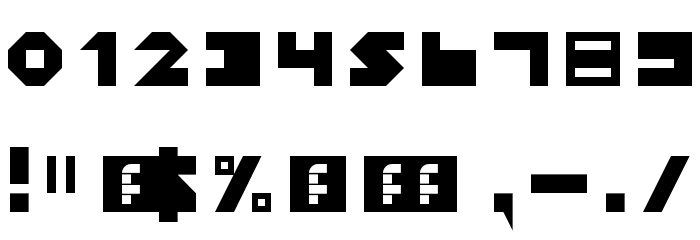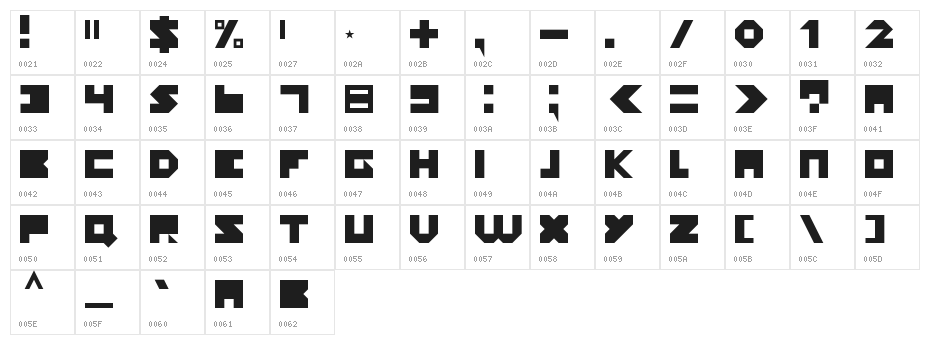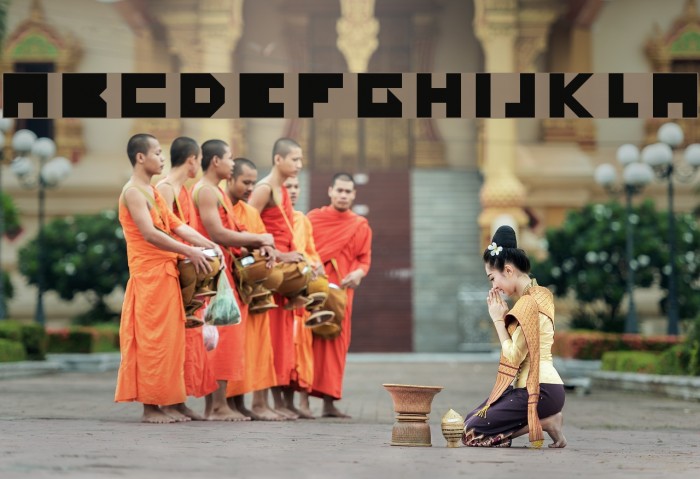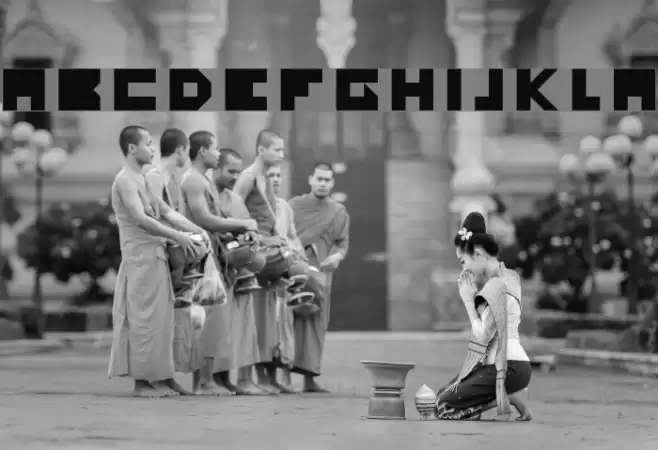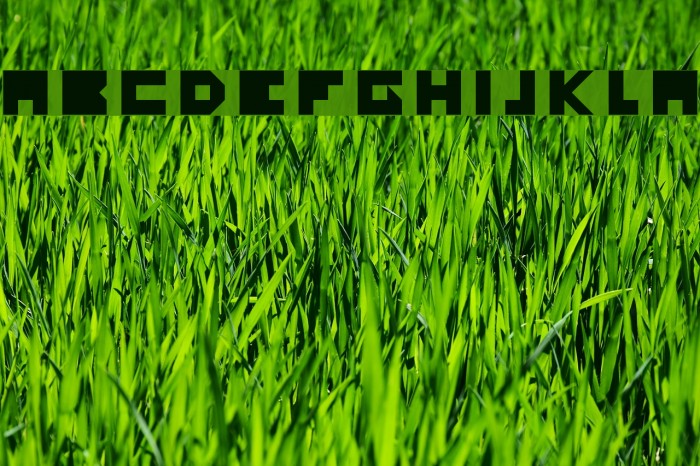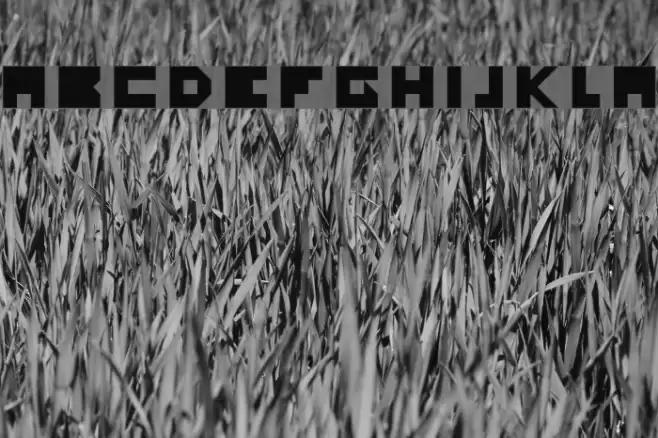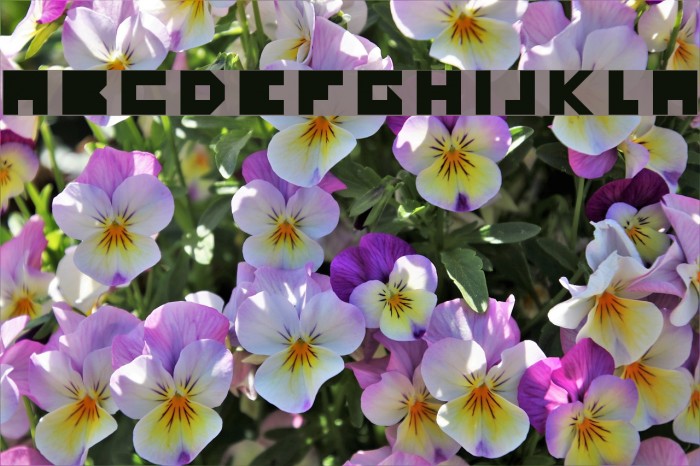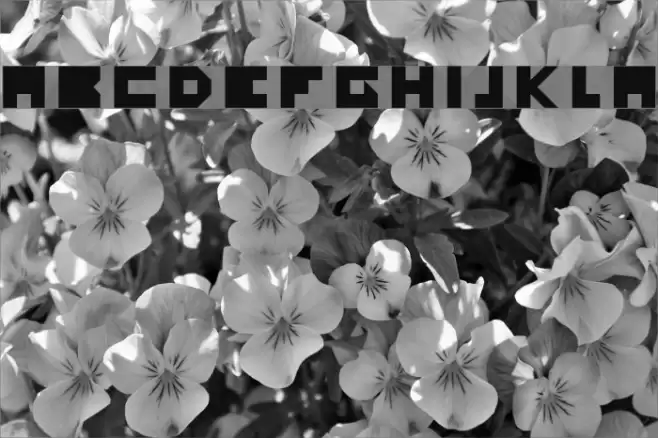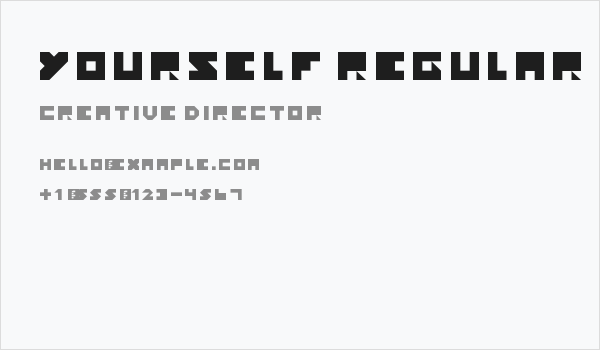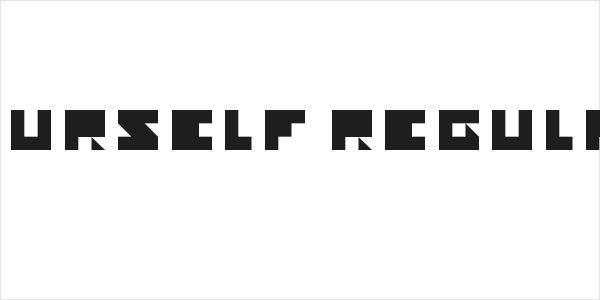
Yourself Regular Font
Yourself Regular Description
This font features a bold and geometric design with a strong emphasis on angular shapes and sharp edges. The characters are constructed with a blocky, futuristic style that gives a sense of modernity and innovation. Each letter and number is distinct, with a consistent thickness that creates a uniform appearance across the typeface. The special characters maintain the same boldness and angularity, ensuring cohesion throughout. This font is ideal for projects that require a strong visual impact and a contemporary aesthetic.